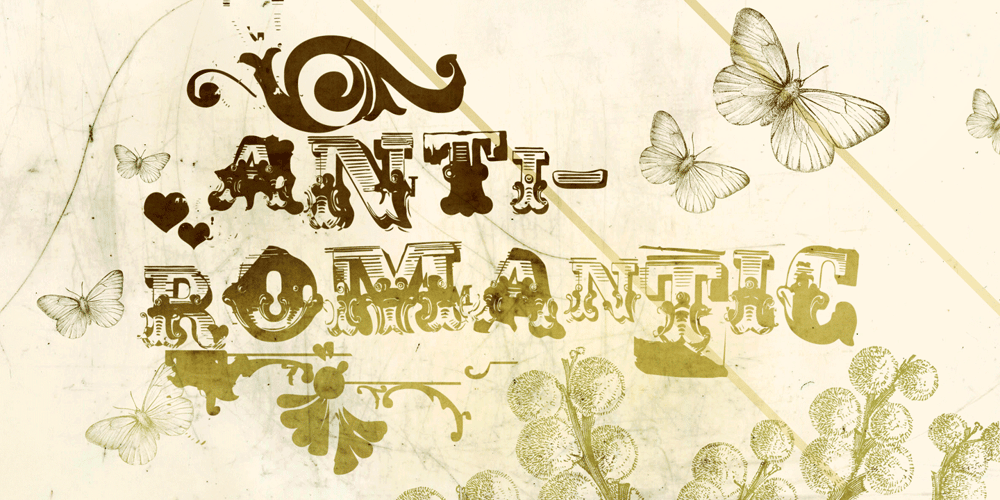
AntiRomantic Font Family was designed by Eduardo Recife and published by Misprinted Type. AntiRomantic contains 8 styles and family package options. Anti-Romantic is a romantic, circus, grunge ornamental font family! It is based on the 1800’s Wood Type fonts and it comes with 4 typeface styles: Anti-Romantic Regular, Small Caps, Displaced and X.